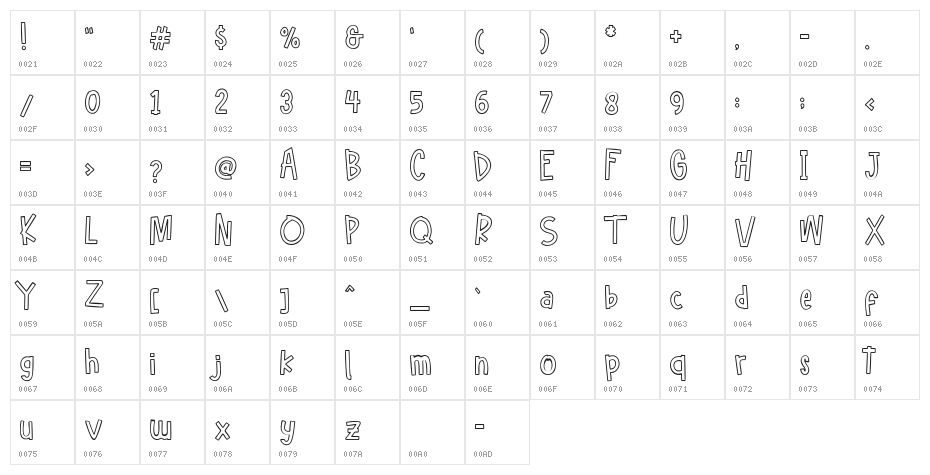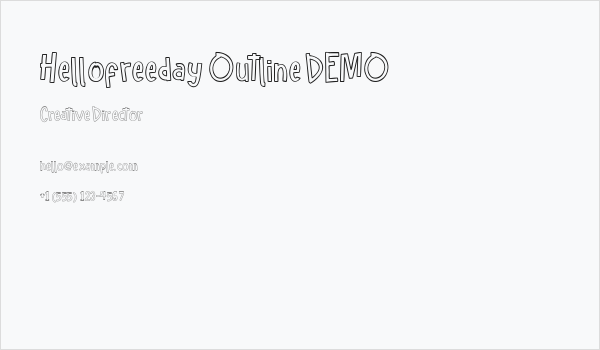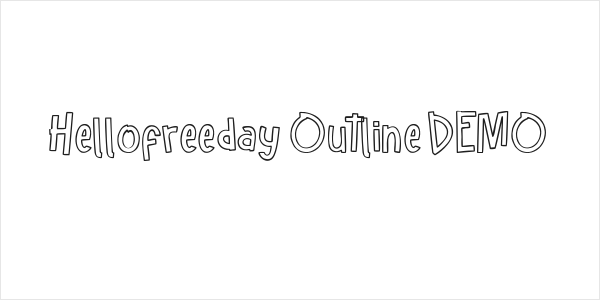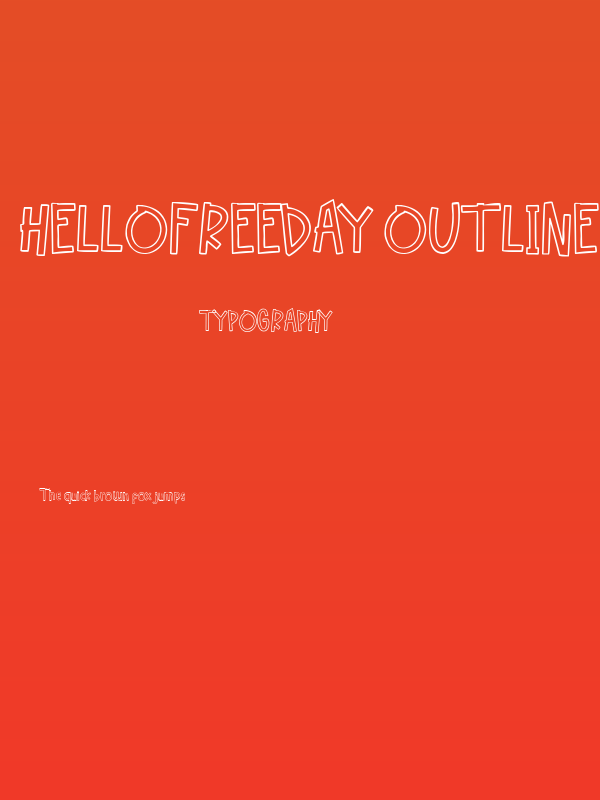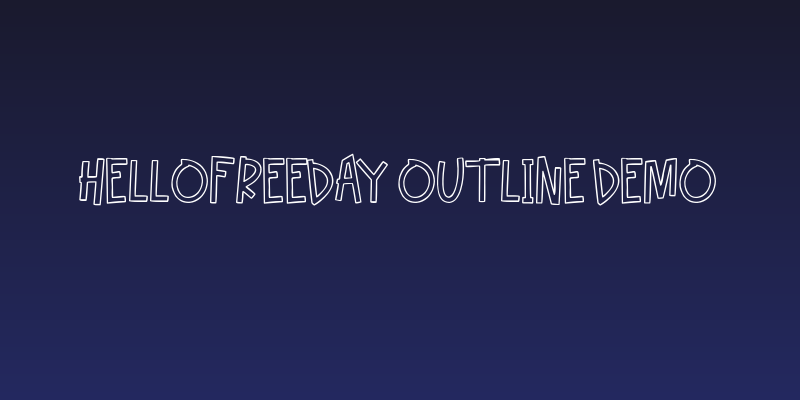
Hellofreeday Outline DEMO Font
Hellofreeday Outline DEMO Description
This playful and whimsical font features an outline style that gives it a unique and eye-catching appearance. The characters are bold and slightly irregular, adding a hand-drawn feel that is both charming and approachable. The uppercase and lowercase letters maintain a consistent style, with rounded edges and a casual flow. Numbers and special characters are included, matching the overall aesthetic with their quirky outlines. This font is perfect for projects that require a fun and informal touch, such as children's books, playful branding, or creative posters.
| Proposed Projects | Ideal for children's books, playful branding, creative posters, and informal invitations. |